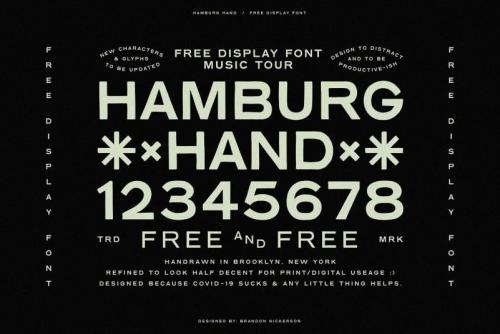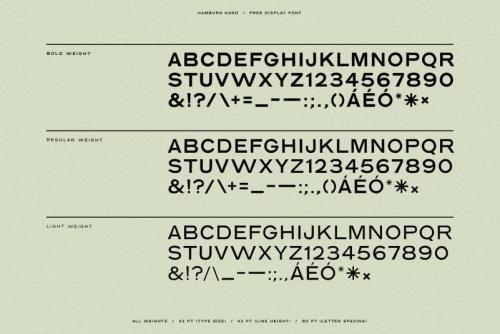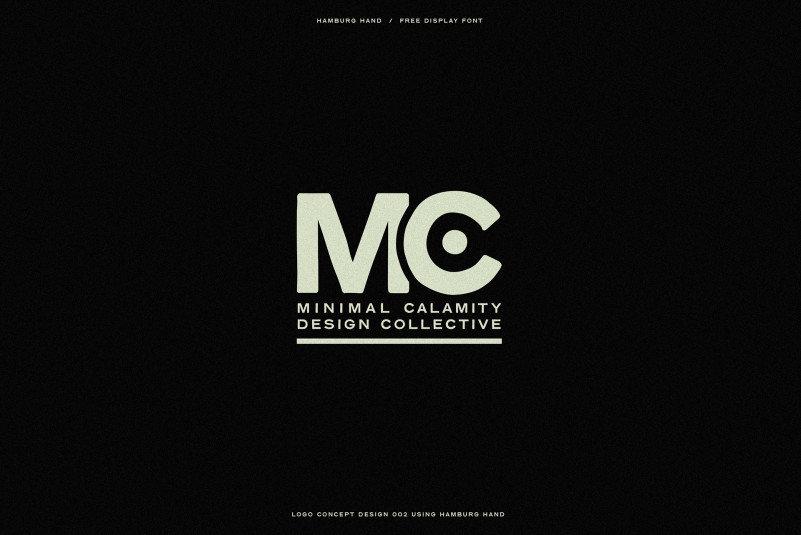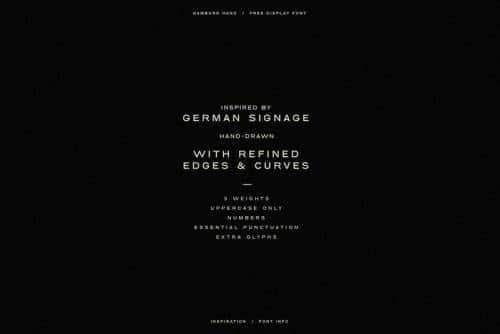
Introducing Hamburg Hand, a free display font inspired by German signage & lettering. Designed during COVID to help designers in some small way, anything helps right?! Download for free using the link at the bottom of the project display. Enjoy!
- Designer: Brandon Nickerson